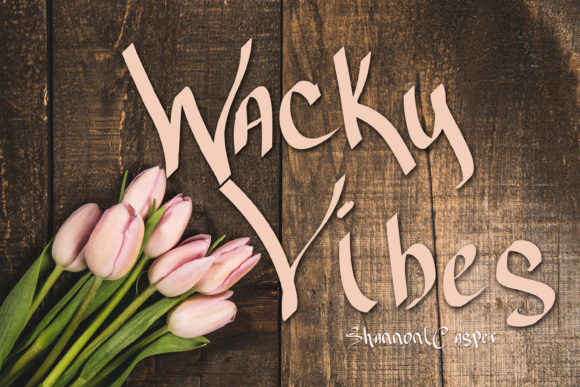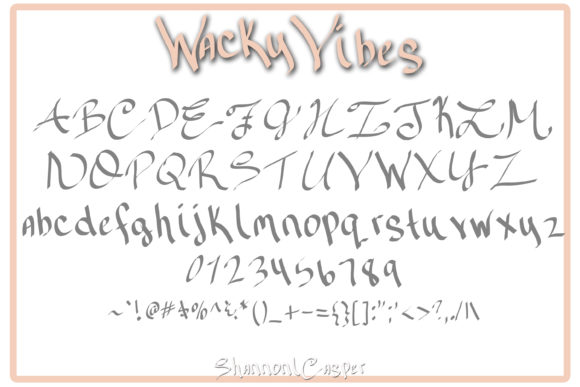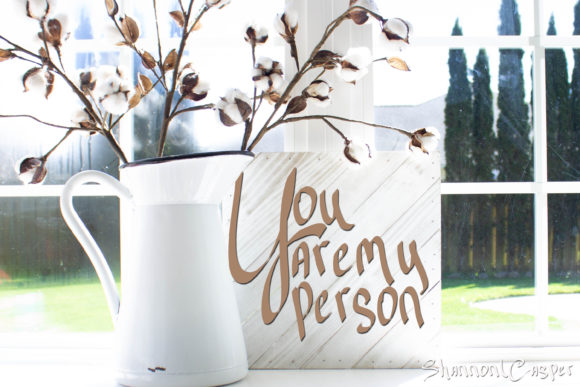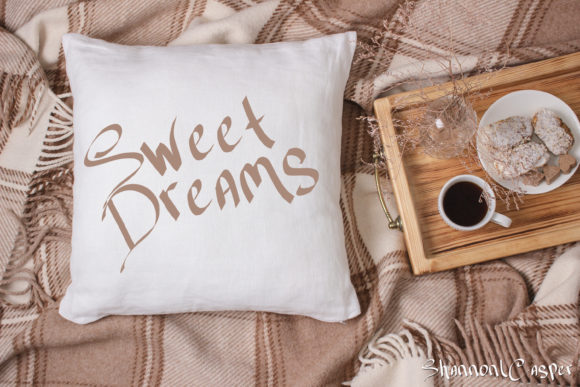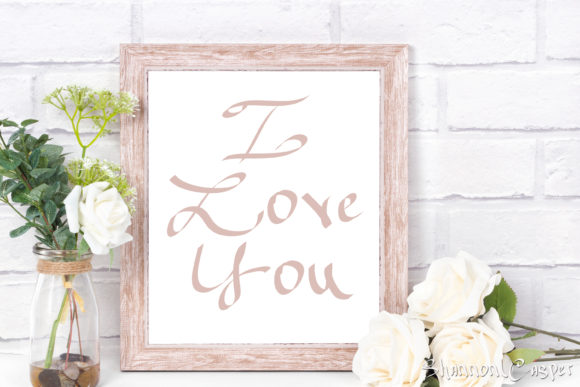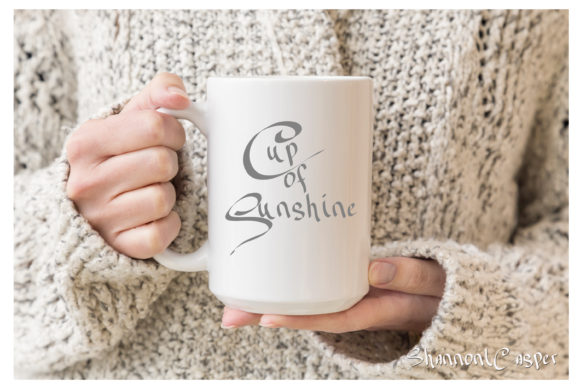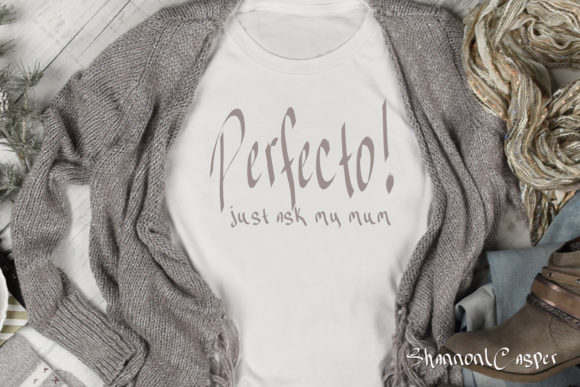
HomeScript FontsWacky Vibes Font Script Fonts Wacky Vibes Font FacebookXPinterestWhatsApp Wacky Vibes Font Poster 2 Wacky Vibes Font Poster 3 Wacky Vibes Font Poster 4 Wacky Vibes Font Poster 5 Wacky Vibes Font Poster 6 Wacky Vibes Font Poster 7 About Wacky Vibes Font Wacky Vibes is a quirky and weird script full of personal charm. Fall in love with its authentic vibe! DOWNLOAD NOW People also explored Mounte Font Freehand Font Hey Girl Font Rainbow Signature Font Coopslight Font Sweetie Autumn Font Smith Signature Font Flower Christmas Font Butterfly Font 323 0 TagsWacky Vibes Font Previous articleBlackstore Signature FontNext articleSugar Fluff Font LEAVE A REPLY Cancel reply Comment: Please enter your comment! Name:* Please enter your name here Email:* You have entered an incorrect email address! Please enter your email address here Website: Save my name, email, and website in this browser for the next time I comment. Personal Use Free Boldist Personal Use Free Read more about this font December Christmas Personal Use Free Read more about this font Cuttie Personal Use Free Read more about this font The Relapse Personal Use Free Read more about this font BLOG To increase your work productivity, choose the most readable fonts. In today's fast-paced work environment, where digital communication and information consumption are integral to our daily routines, the choice of fonts can significantly impact... 5 Fonts That Will Dominate Design Trends in 2026 Top 7 Google Fonts Alternatives for Faster and Privacy-Friendly Web Design (2025) Fonts That Capture the Spirit of New York City